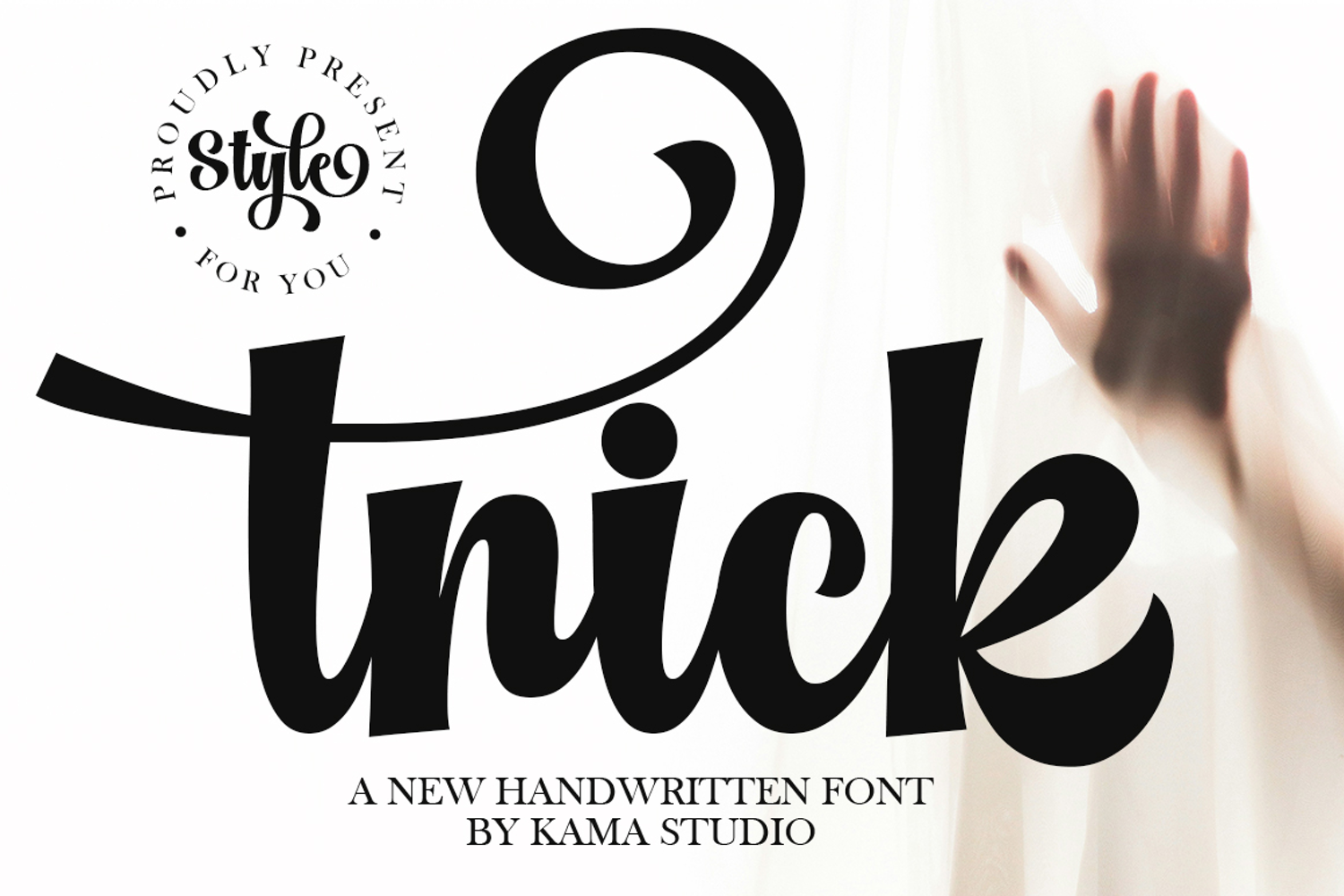
Introducing Trick – a striking and fashion-forward manuscript-style typeface that effortlessly infuses your designs with a contemporary, spirited, and expressive flair. The sleek contours and distinctive character shapes of Trick are meticulously crafted, making it an ideal choice for establishing strong brand identities, creating captivating logos, extending warm invitations, engaging social media posts, innovative packaging, eye-catching posters, and beyond. Enthrall your audience with Trick’s modern charm and enhance your creative communiqué.